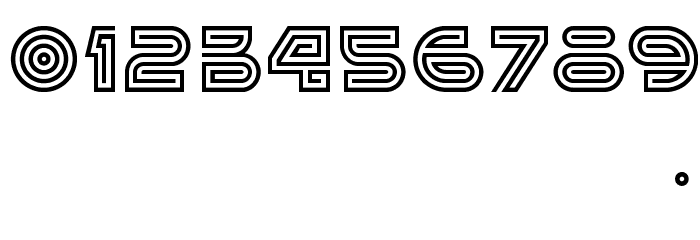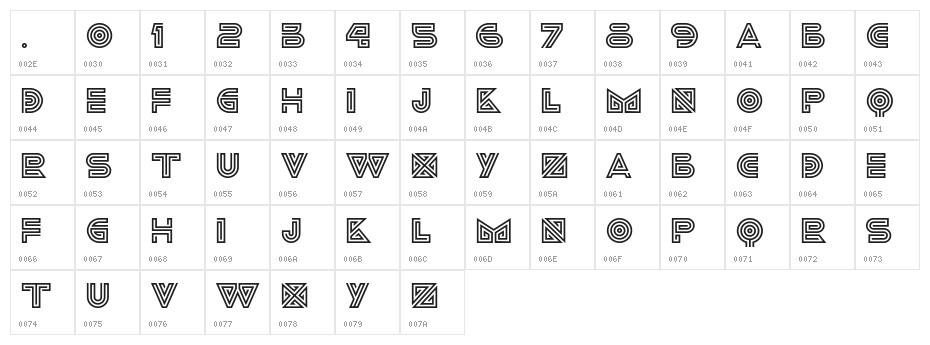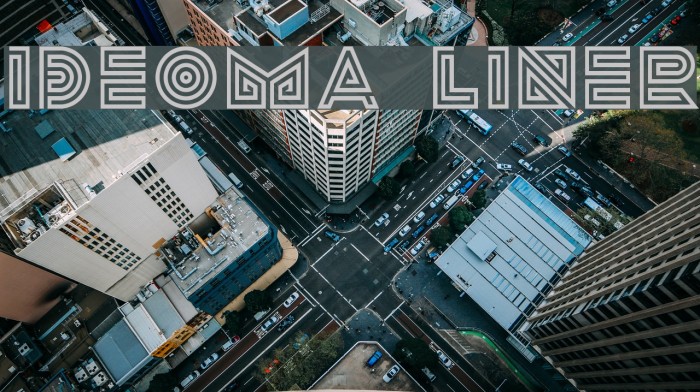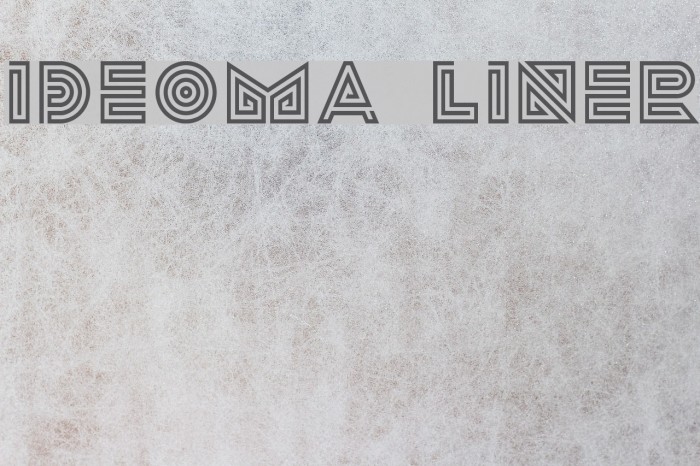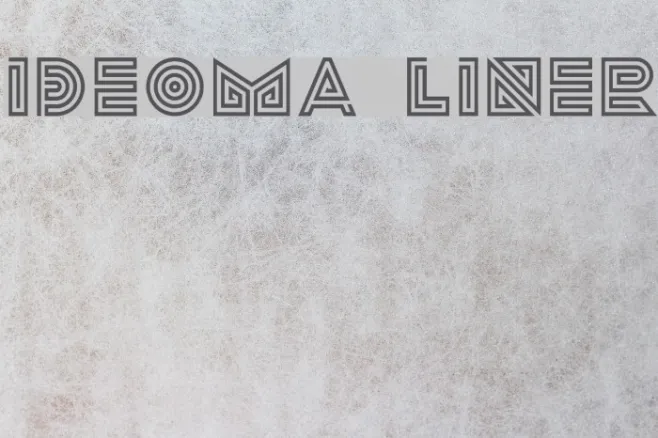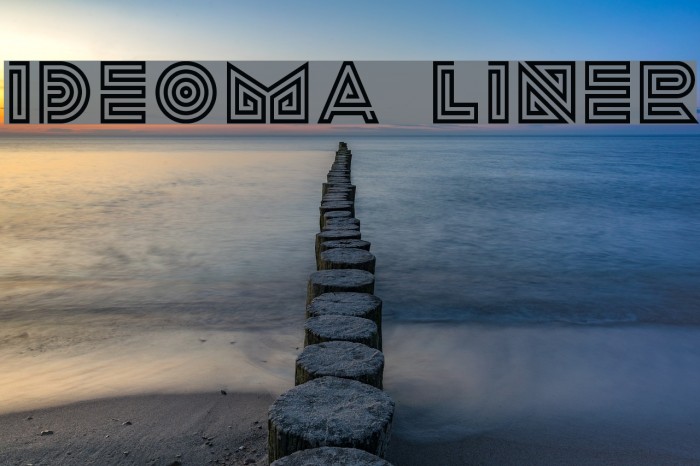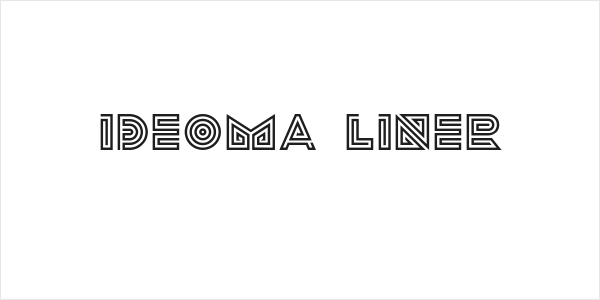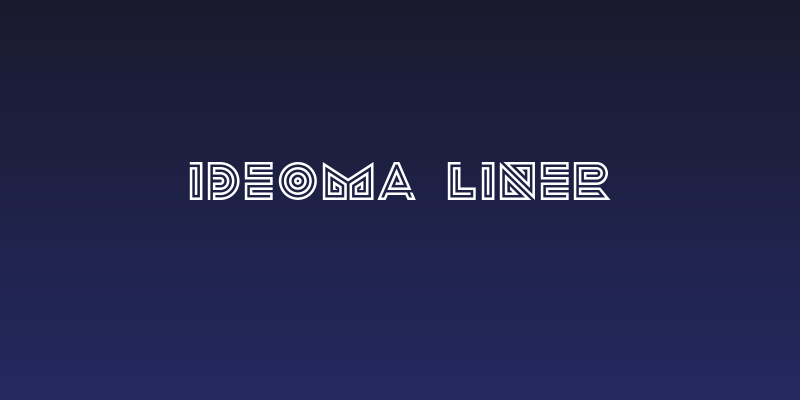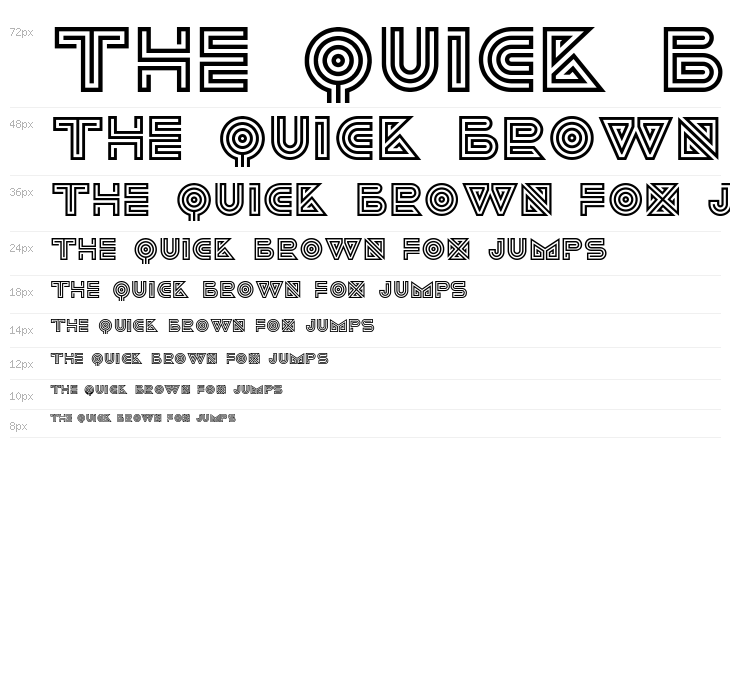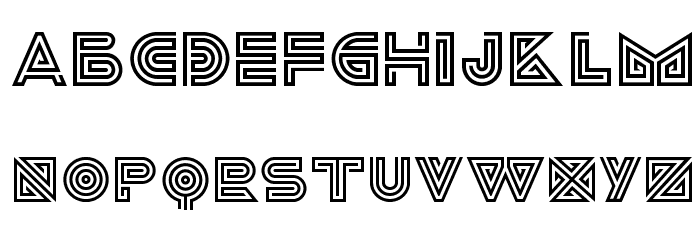
ideoma LINER Font
ideoma LINER Description
This font features a bold, geometric design with a distinct outline style. Each character is constructed with multiple parallel lines, creating a layered effect that adds depth and dimension. The uppercase letters are particularly striking, with angular shapes and unique patterns that make each letter stand out. The numbers follow a similar design, maintaining consistency across the font. The overall appearance is modern and futuristic, making it ideal for projects that require a bold and eye-catching typeface. The spacing between characters is normal, allowing for clear readability despite the intricate design.